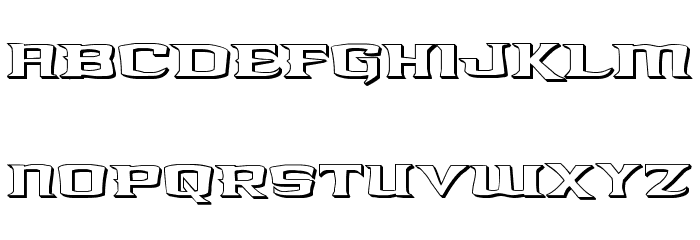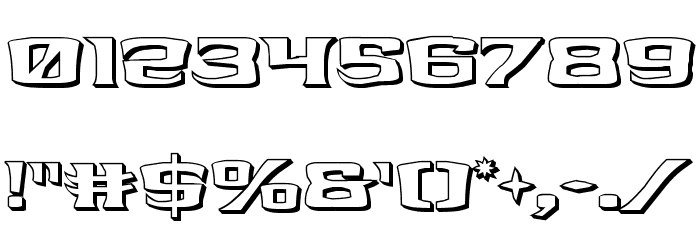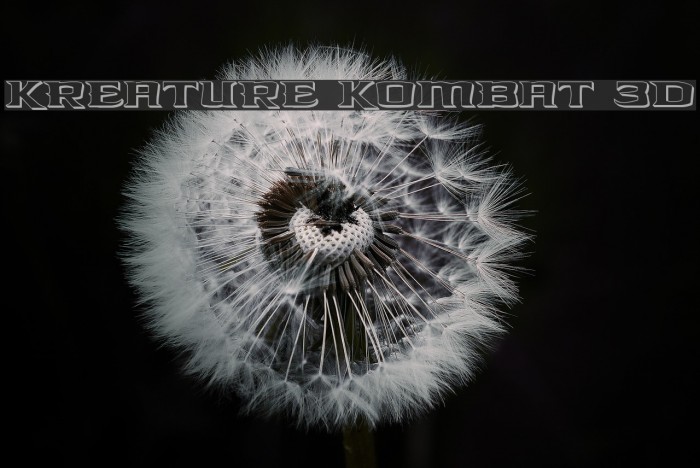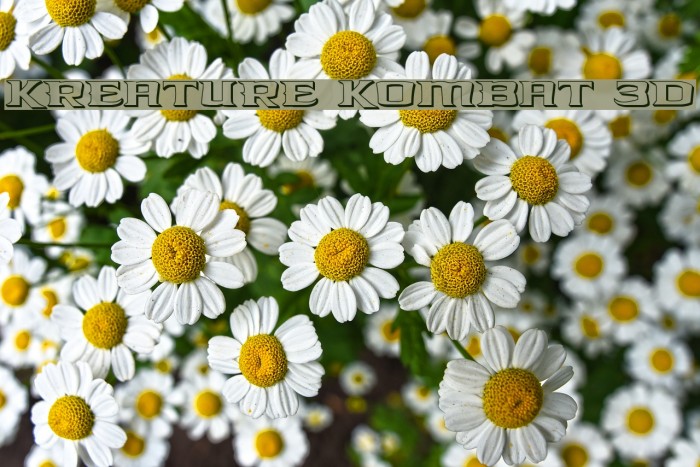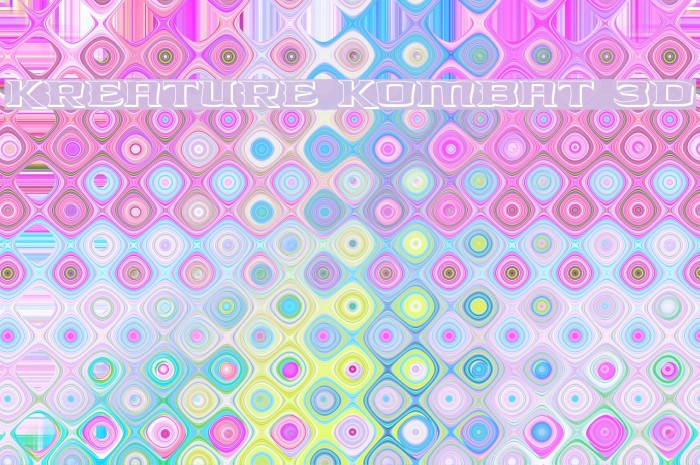
Kreature Kombat 3D Font
This font features a bold, three-dimensional design with a strong, angular appearance. The characters are outlined with a shadow effect, giving them a dynamic and impactful look. The uppercase and lowercase letters maintain a consistent style, with sharp edges and a futuristic feel. The numbers and special characters are designed to match the boldness and geometric style of the letters, making the font suitable for attention-grabbing designs. Its unique style is reminiscent of video game or sci-fi themes, making it ideal for projects that require a modern and edgy aesthetic.
A bold, 3D font with angular, futuristic design elements.
- Proposed Projects: Ideal for video game titles, sci-fi movie posters, and edgy branding projects.